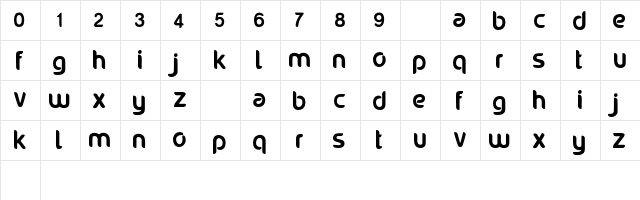
nora viyel Regular
Design Context for nora viyel Typeface
nora viyel is a composed and adaptable typeface that performs quietly and consistently across a wide range of design contexts.